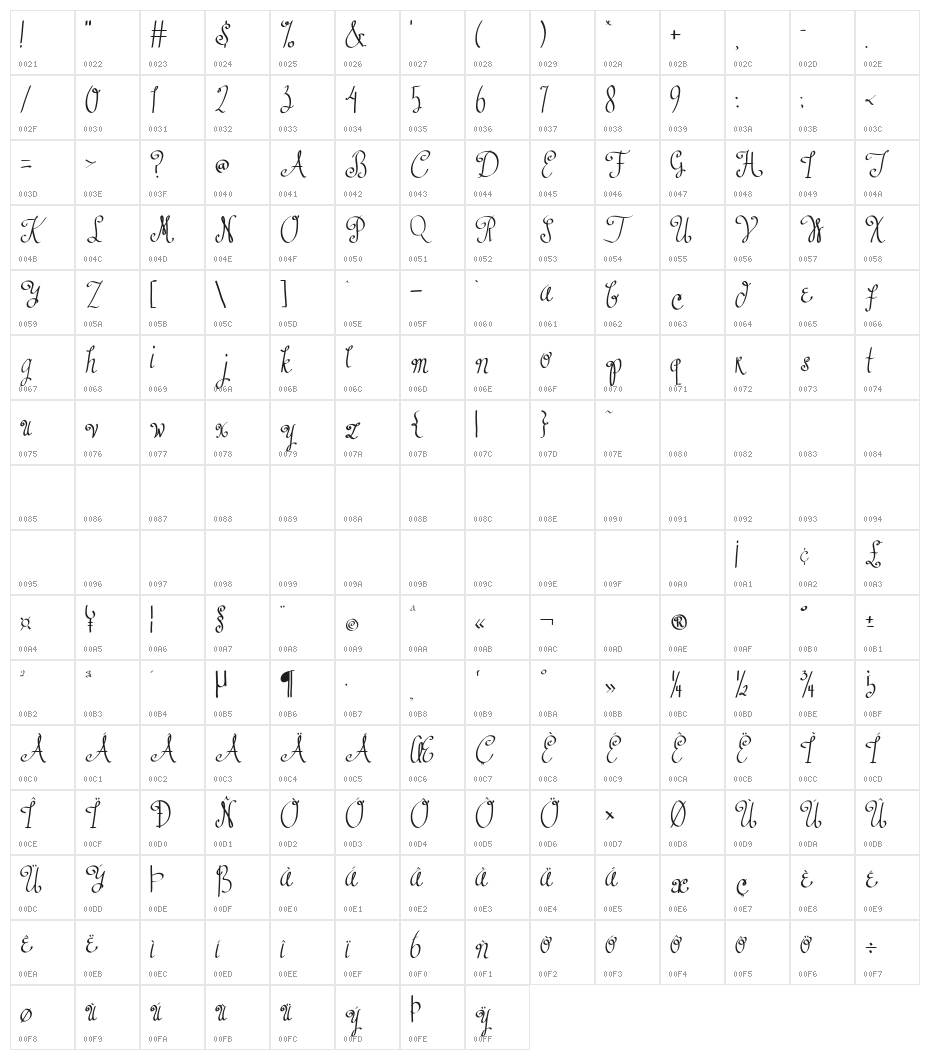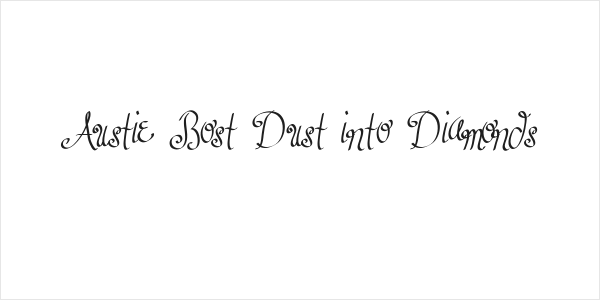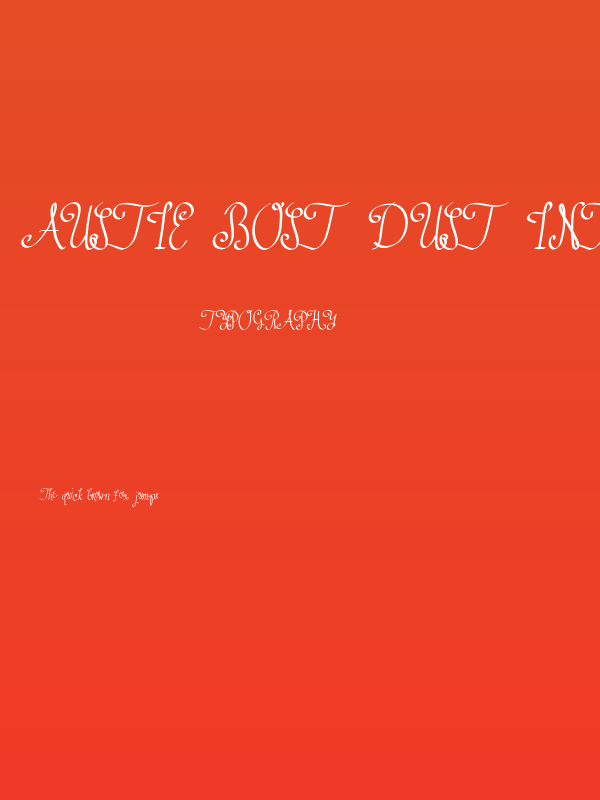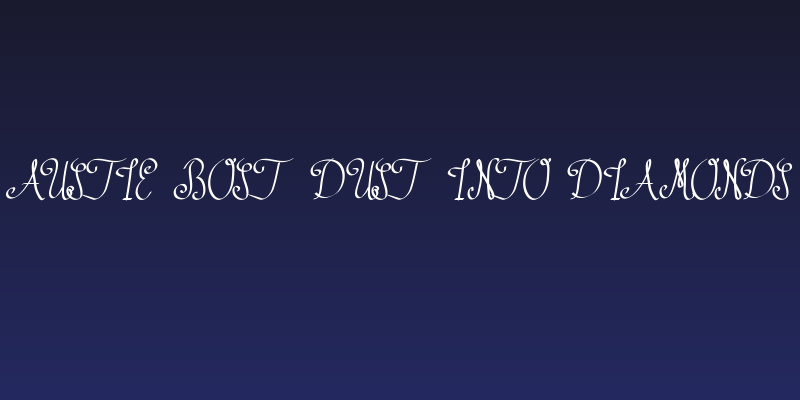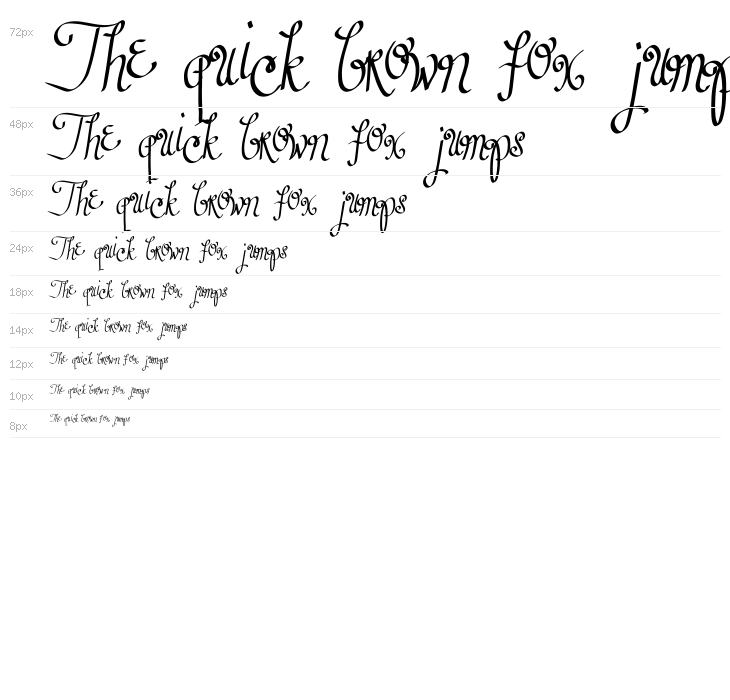
Austie Bost Dust into Diamonds Font
Austie Bost Dust into Diamonds Description
This font features an elegant and whimsical design with a decorative flair. The characters are crafted with a playful, curly style that adds a sense of movement and charm. Each letter is adorned with unique loops and swirls, making it stand out as a distinctive choice for creative projects. The uppercase letters are bold and expressive, while the lowercase letters maintain a consistent, flowing style. Numbers and special characters follow the same artistic theme, ensuring a cohesive look across all text elements.